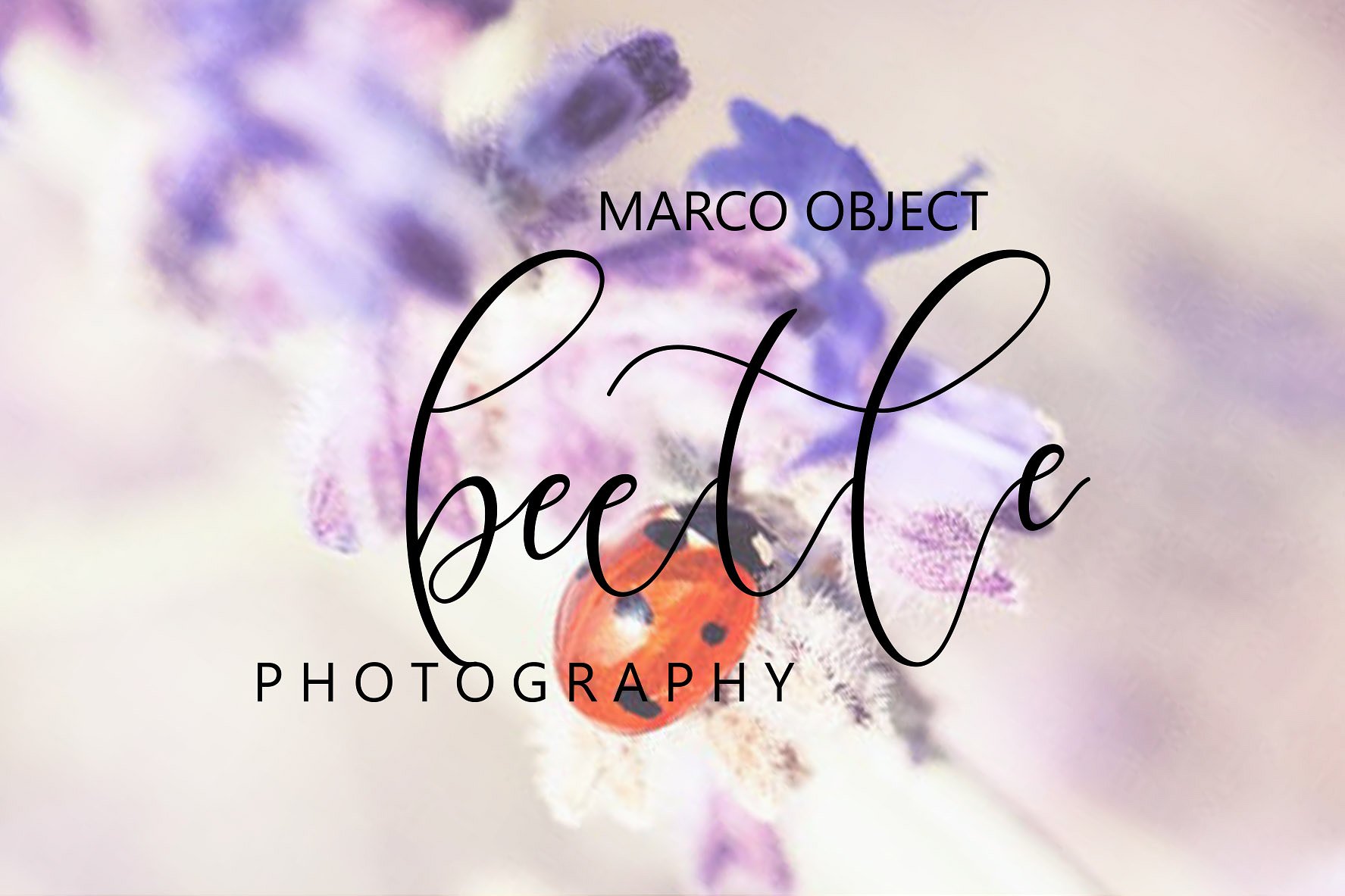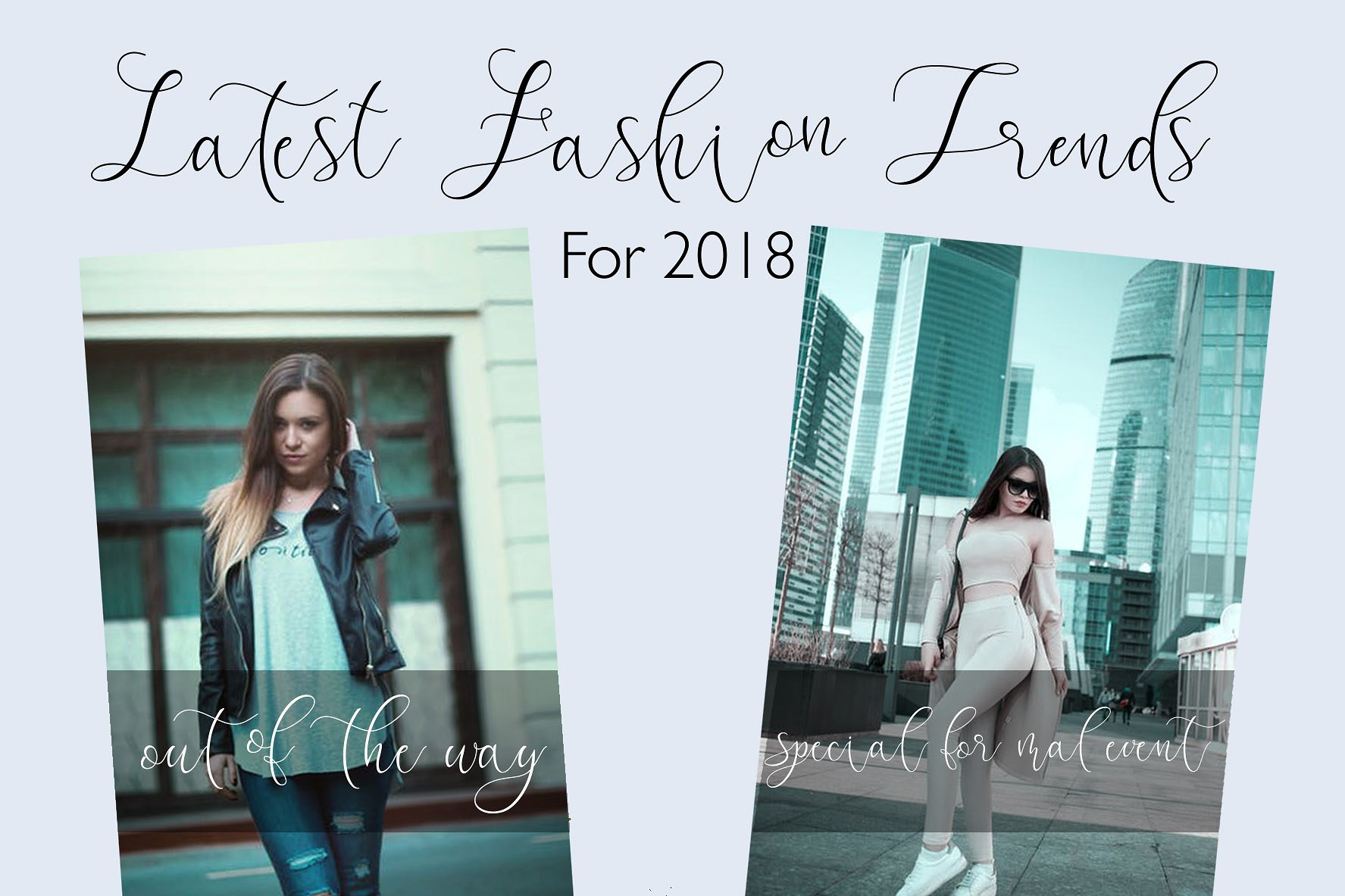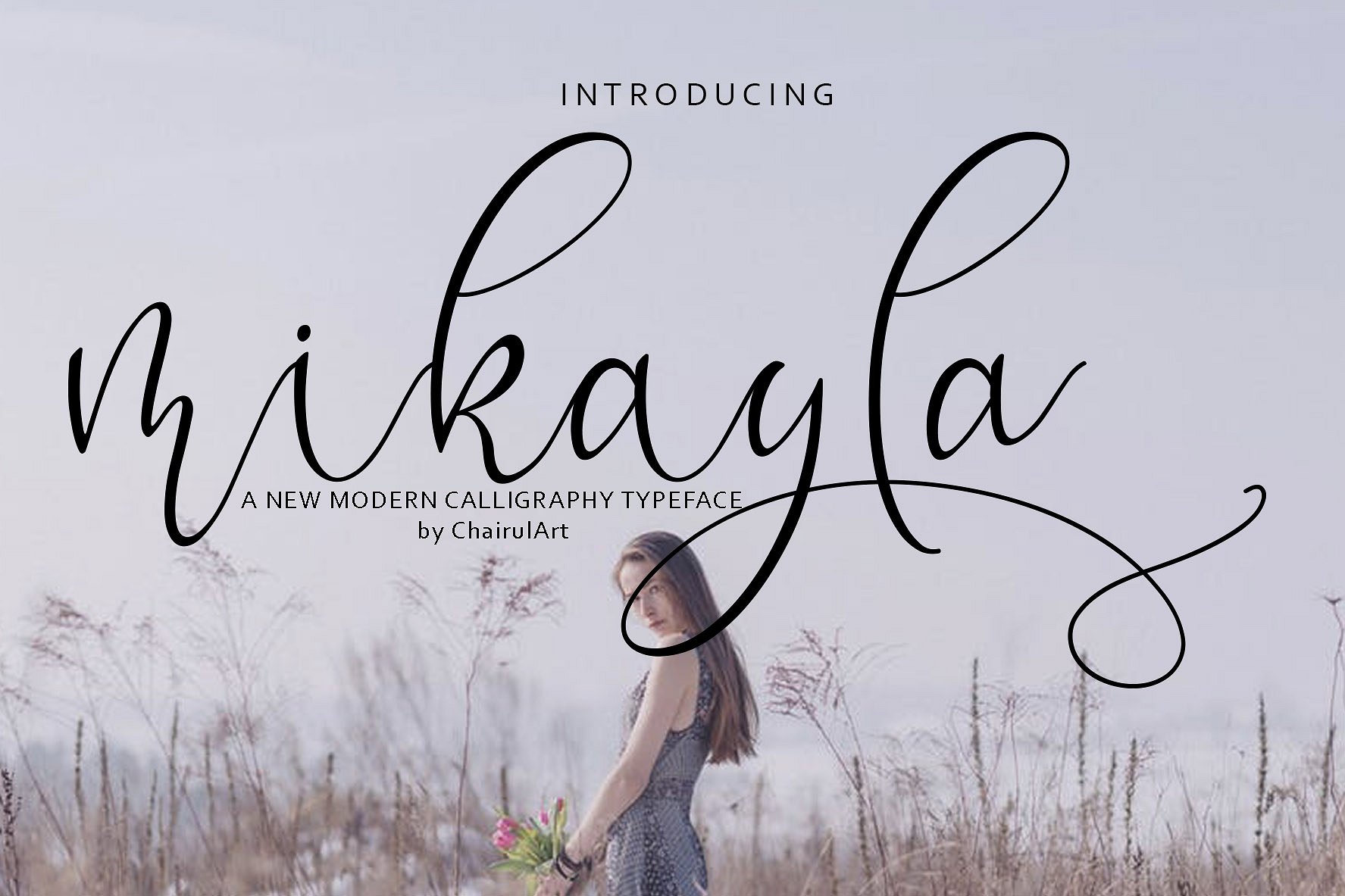
Mikayla Script Font
A new modern calligraphy typeface. A new script font from ChairulArt in a modern, simple and elegant style. Introducing Mikayla Font. This is modern script font, every single letters has been carefully crafted to make your text looks beautiful. With modern script style this font will perfect for many different project, example: invitations, greeting cards, posters, name card, quotes, blog header, branding, logo, fashion, apparel, letter, stationeryand more !